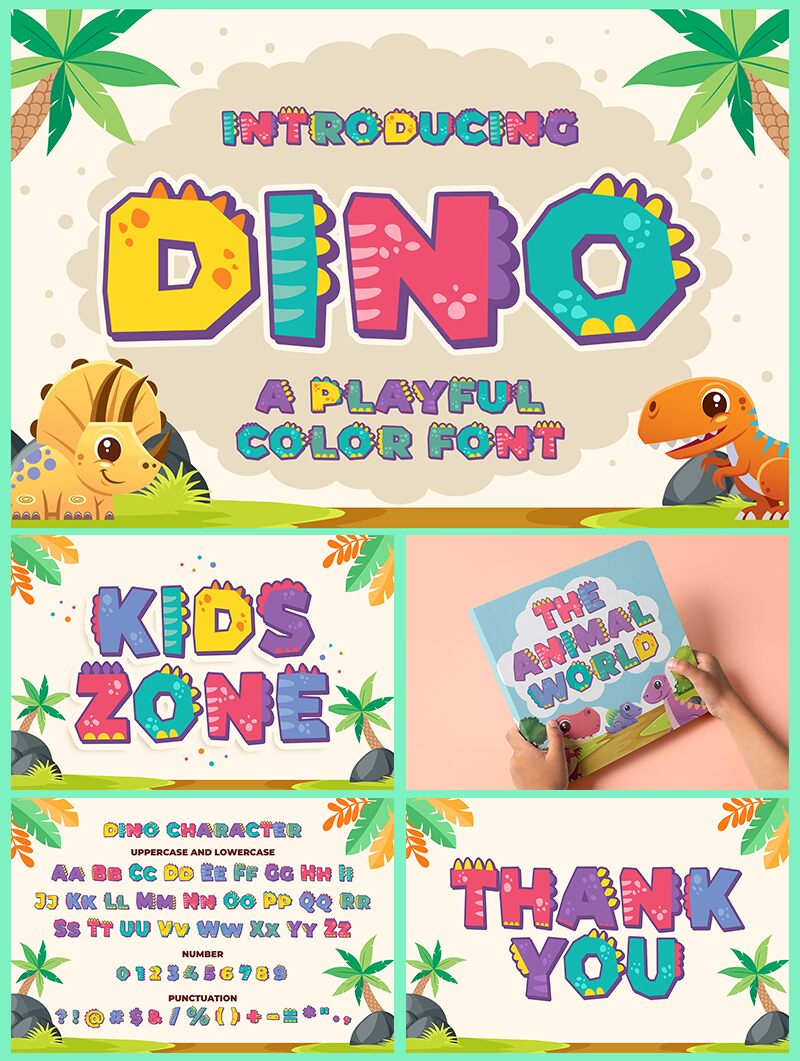
Dino font is a bold display cartoon typeface designed by Blankids. It delivers blocky, geometrical, playful, and cartoonish letters. The style looks retro through rounded elements which are pleasing to the eye and easy to perceive in general.
Since Dino font is free, you can basically add it to any of your branding and advertising designs meant for clients or personal benefit. Try it in names of movies and cartoons or on their posters where attention-seeking fonts are a proper must. The typeface is perfect for packaging labels in combination with minimal approaches using classical serifs or lightweight sans-serifs.